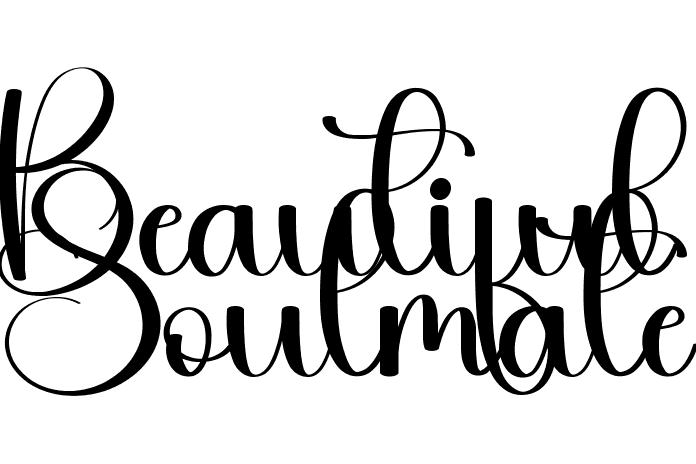
Belle Amour Regular Font
We are going to introduce Belle Amour Regular Font which comes with Regular and italic weights along with stylistic alternates. this font will work perfectly for fashion, e-commerce brands, trend blogs, wedding boutiques or any business that wants to appear upscale and chic.
Typeface classification Handwritten,Script